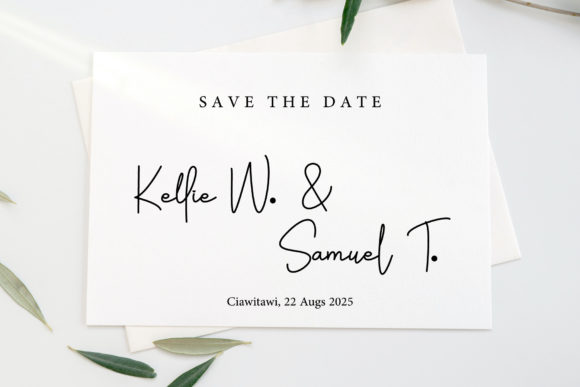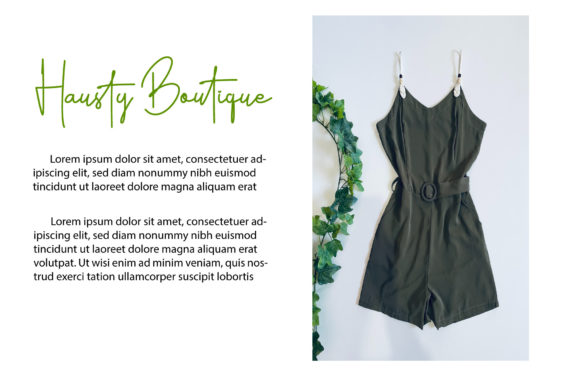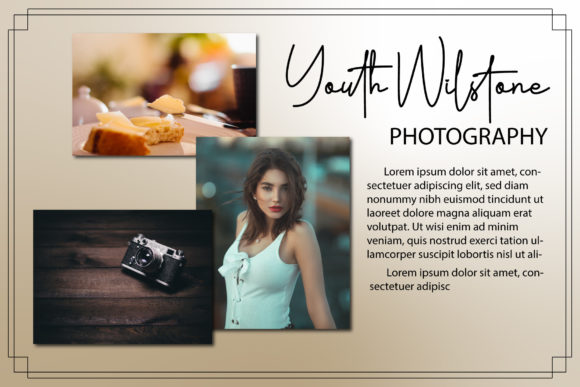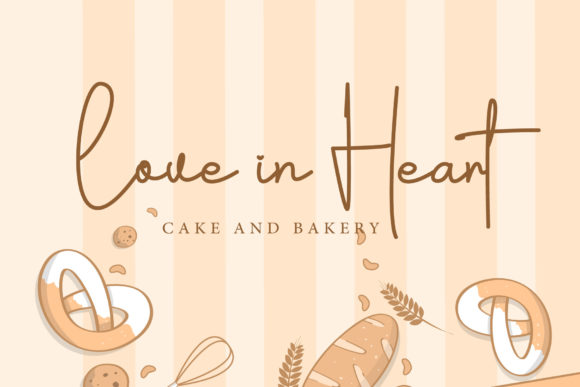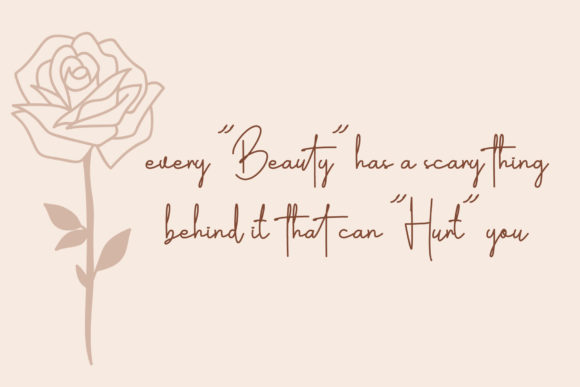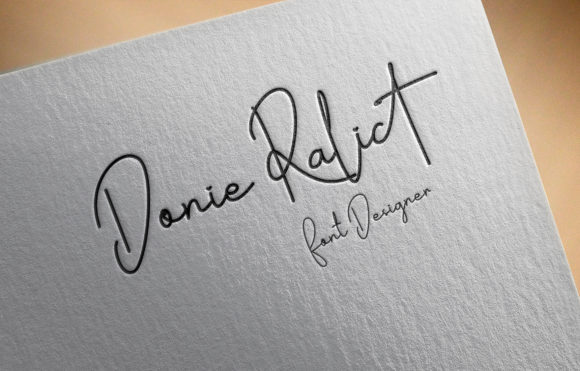
Alfath Signature Font
About Alfath Signature Font
“Alfath Signature” isn’t just a font; it’s a masterpiece meticulously crafted to embody fashion and elegance in its slim, handwritten form. Its design is a testament to the art of typography, created to win hearts and become a beloved choice for designers. This font is not just versatile; it’s a canvas for creative expression. Whether you’re crafting quotes, greeting cards, business cards, wedding invitations, logos, lettering, t-shirt designs, or beyond, “Alfath Signature” stands ready to elevate your creative vision.
The allure of “Alfath Signature” arises from its seamless fusion of fashion and elegance. Each character carries a touch of refinement, contributing to an aesthetic that is not only visually captivating but also resonates with an air of sophistication.
As you integrate “Alfath Signature” into your creative journey, you’ll experience its transformative impact. By incorporating this font into your projects, you’ll witness how it elevates and magnifies your ideas, making them radiate brilliance among a sea of artistic expression.
In essence, “Alfath Signature” transcends the role of a mere font. It’s a vessel of elegance and fashion that has the power to enrich visuals across a multitude of contexts. With its slim and fashionable handwritten style, this font emerges as an indispensable asset for designers seeking to create visually captivating, sophisticated, and impactful visuals that resonate with their audience.